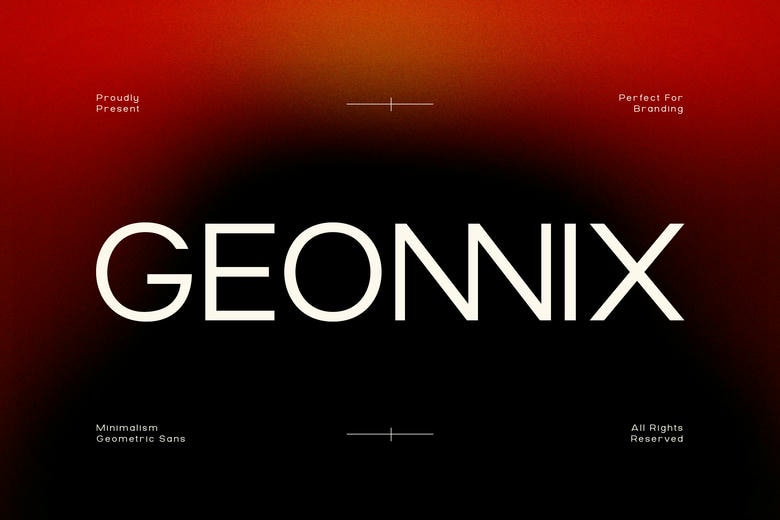
Geonnix Font
Geonnix is a modern geometric sans-serif typeface with a minimalist style. It has a clean structure, balanced proportions, and a simple, contemporary appearance. The design uses precise geometric shapes.
Geonnix looks sleek and professional, with a modern and versatile feel. Its thoughtful design makes it easy to read and gives it a unique style, so it works well for many types of design projects.
Geonnix Sans Serif Font